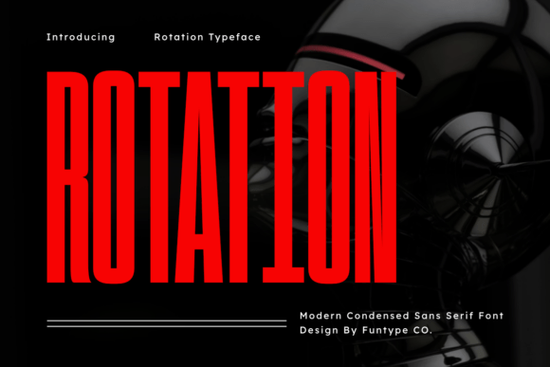
If you're looking for a bold, narrow sans serif font that holds up well on apparel, posters, or packaging especially where space is tight and impact matters the Rotation Font fits naturally into real design workflows. It’s not just tall and narrow; it’s carefully balanced to avoid visual distortion at small sizes or on curved surfaces like sleeves or vinyl decals. Designers who’ve used it say it reads cleanly even when scaled down to 12pt on a tag or blown up across a storefront banner.
When does Rotation Font work best?
This font shines in situations where you need authority without ornamentation. Think: streetwear brand logos, gym or esports team identities, minimalist product labels, or digital event announcements with limited layout space. Its ultra-condensed geometry gives it presence without needing extra width ideal for vertical signage, Instagram story text overlays, or custom water bottles where horizontal room is scarce.
Because it’s built with dense vertical scaling, letters sit tightly together without crowding. That means tighter tracking adjustments are often unnecessary, saving time during mockup revisions. You’ll also find it pairs well with lighter, more open typefaces if you’re layering headlines and body copy like using Matters Font for subheads or captions.
For crafters using SVG cut files, many users report success converting the font to outlines before exporting especially when prepping layered vinyl designs. And since it’s a single-weight family (bold), it works well alongside multi-weight bundles like the Bold Playful Bundle, where you might use Rotation for the main logo and a friendlier companion font for supporting text.
How does it compare to other modern condensed fonts?
Unlike some narrow fonts that sacrifice legibility for width reduction, Rotation keeps letterforms distinct even lowercase i, l, and 1 remain easy to tell apart. That’s helpful for names, dates, or short slogans on merchandise where clarity matters more than stylistic flair. It’s less decorative than Shine Bright Font, less academic than Campus Font, and more grounded than Rotation Font’s own sibling styles (if expanded later).
Practical tips before you use it
- Test spacing early: Try setting your headline in Rotation Font at its intended size, then step back or view it on a phone screen tight kerning can look great on desktop but blur on mobile.
- Avoid over-layering: Because it’s bold and dense, stacking it with heavy shadows or glows may reduce readability on dark fabrics or low-res prints.
- Check contrast for accessibility: On light backgrounds, it’s clear. On mid-tone or patterned substrates (like heather grey tees), test a physical sample first.
If you’re building a consistent brand system say, for a new activewear line or local festival series start by pairing Rotation Font with one neutral sans (like Matters Font) and one simple script or handwritten option for variety. Then lock in those pairings across Canva templates, Shopify banners, and social media assets. Consistency matters more than complexity and Rotation Font makes that easier to maintain.